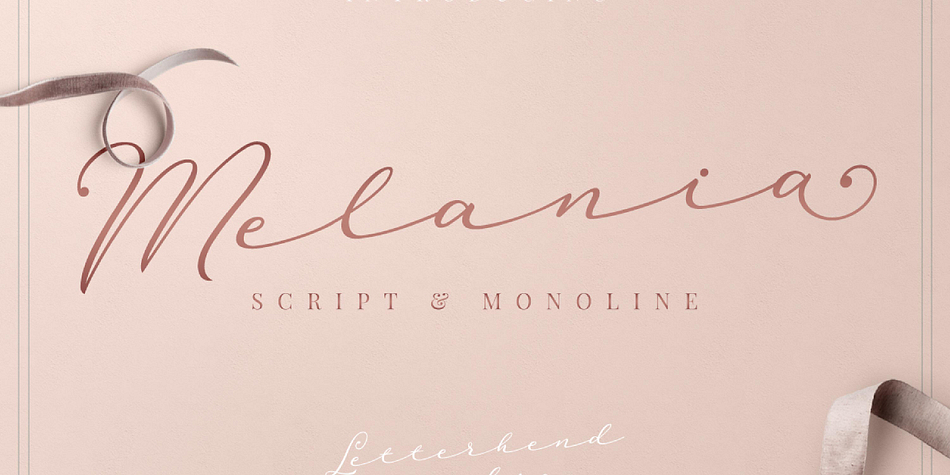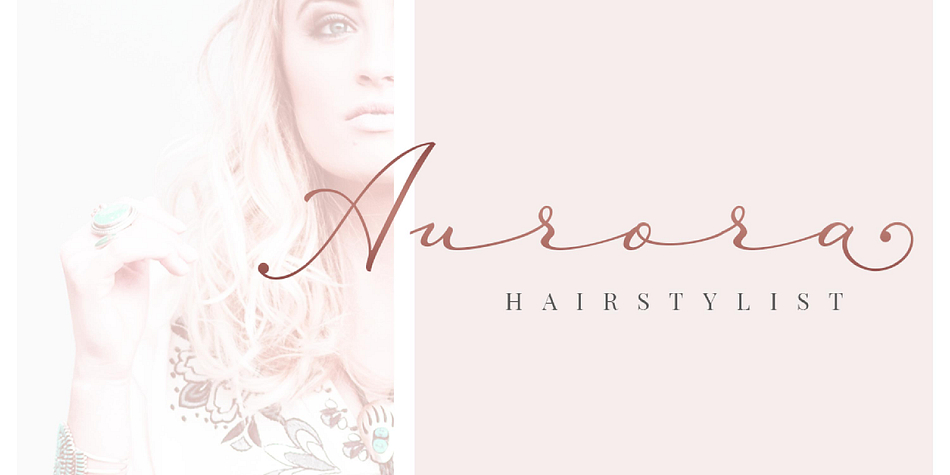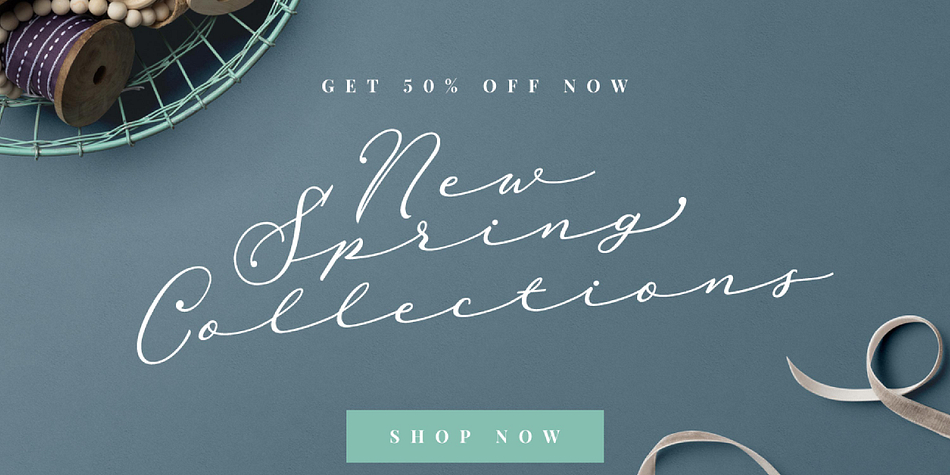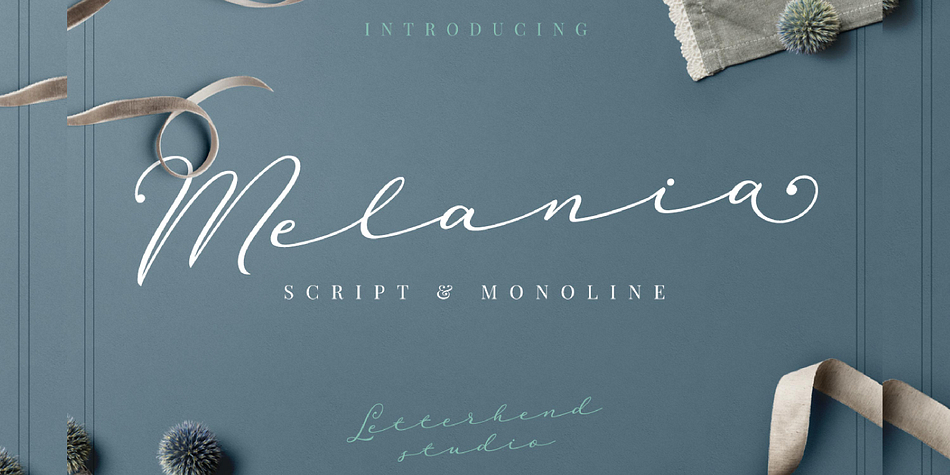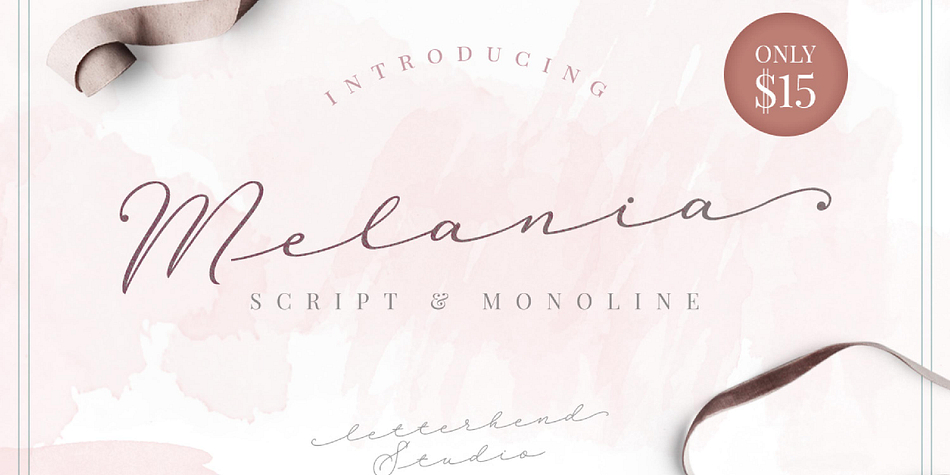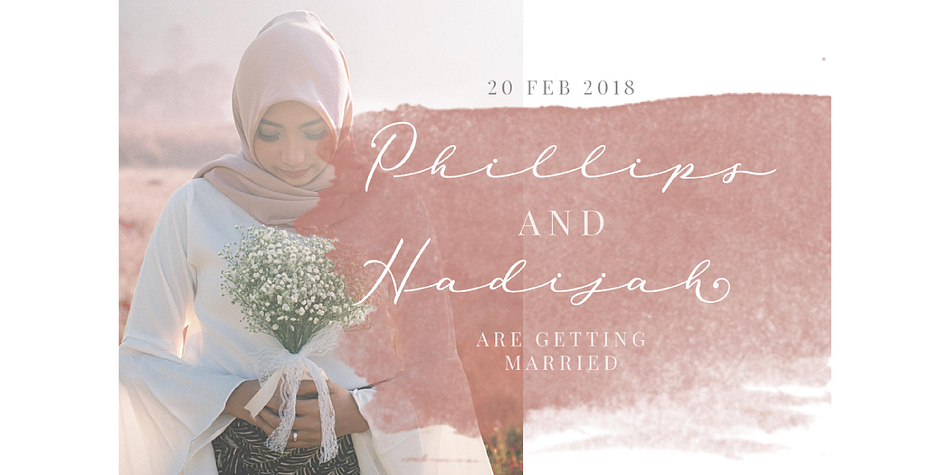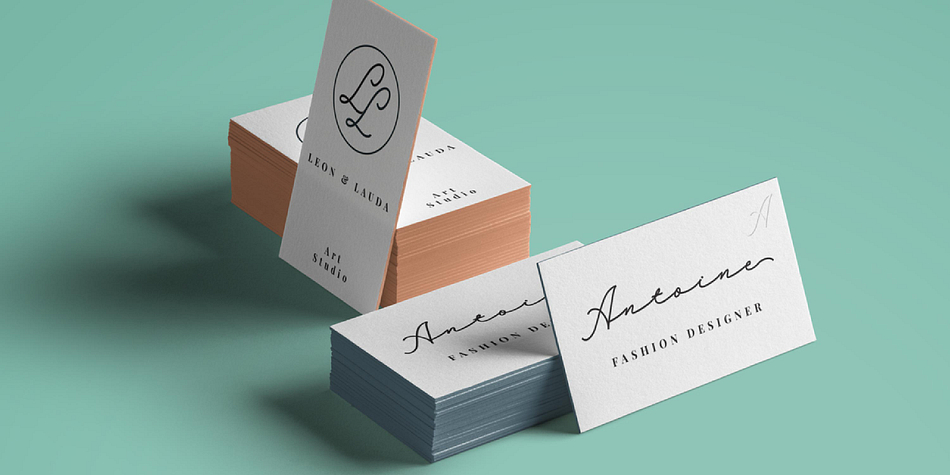
Designed by Hendry Juanda, Melania Script is a modern calligraphy and script font family. This typeface has three styles and was published by Letterhend Studio.
Say hello to Melania, a script font that which is created by natural hand writing and gives you the feminine touch that you’ve been looking for. The irregular spacing bring the personal & unique feels which is very suitable for signature, wedding invitation, fashion, headline, quotes, etc. It also comes in uppercase, lowercase, punctuations, symbols & numerals, stylistic set alternate, ligatures, etc also support multilingual.